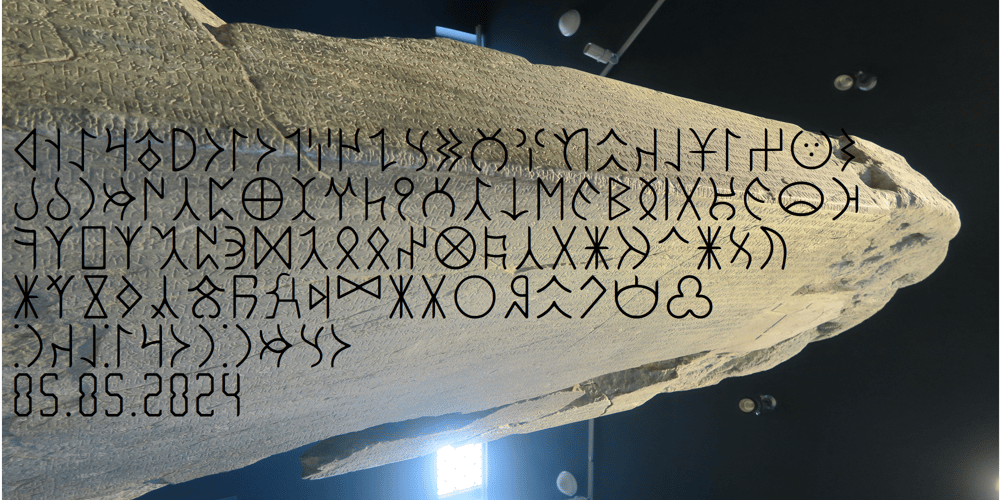
Ongunkan Old Turkic Full Orkhon Font Family was designed by Osman Nuri ALKAN and published by Runic World Tamgacı. Ongunkan Old Turkic Full Orkhon contains 1 styles and family package options. This font contains the letters in the Old Turkish Gokturk Khaganate inscriptions.It covers all the inscriptions found in the Orhun valley. Letters in the inscriptions of other regions will be loaded with different fonts. Yenisei inscriptions have been uploaded. Others will be uploaded from time to time.